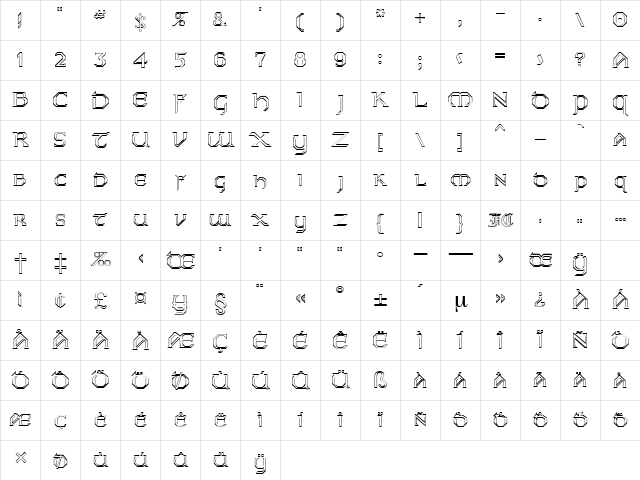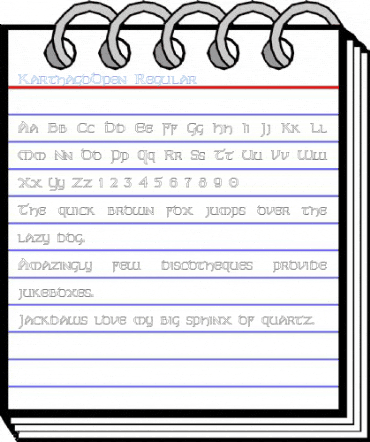
KarthagoOpen Regular
Design Context for KarthagoOpen
KarthagoOpen is a composed and adaptable typeface that performs quietly and consistently across a wide range of design contexts.